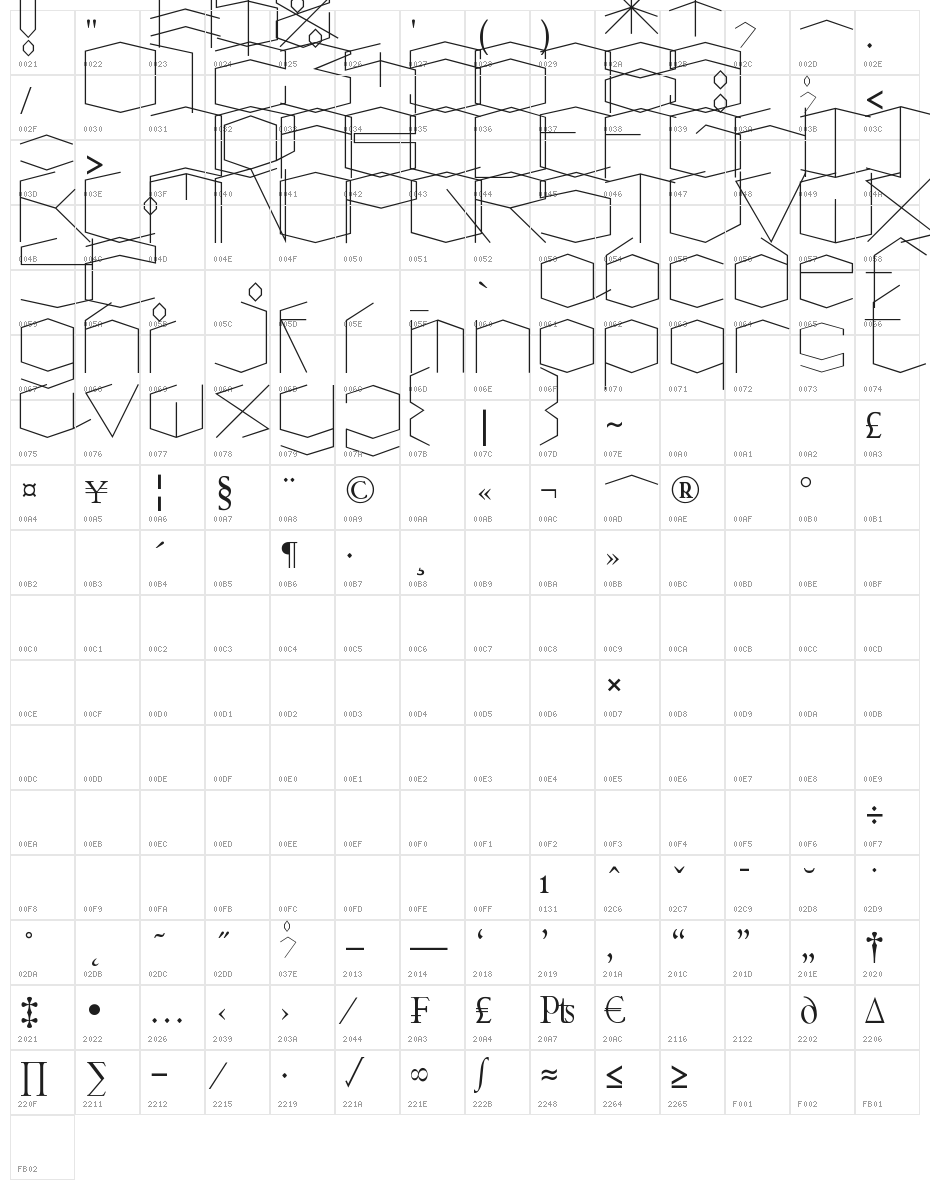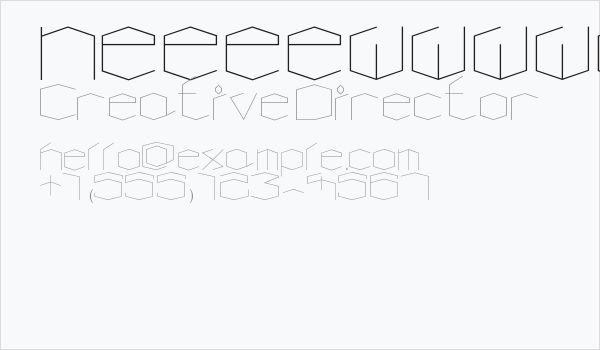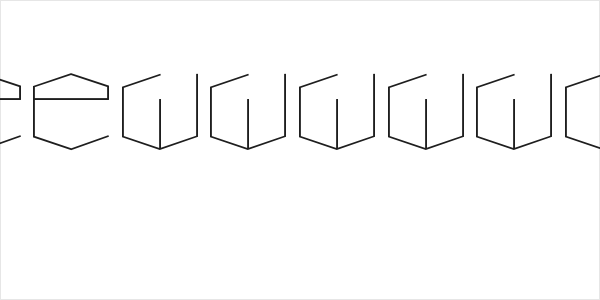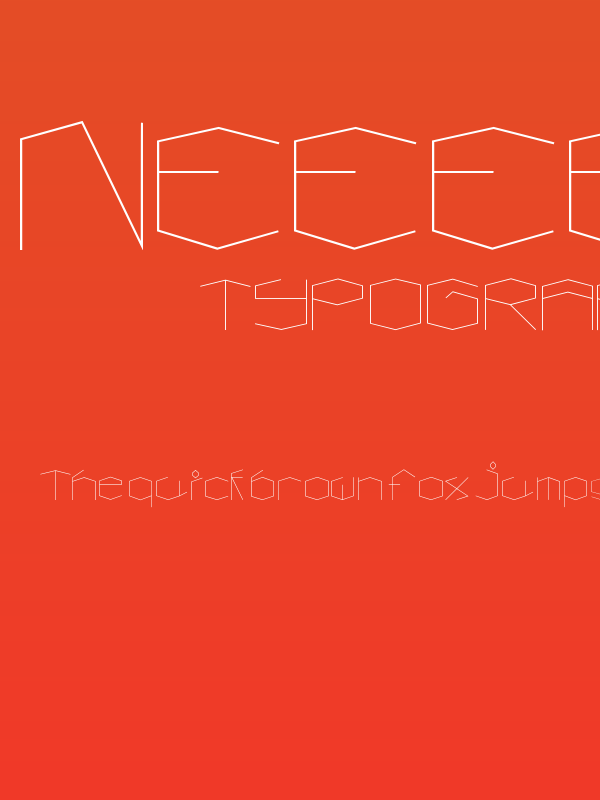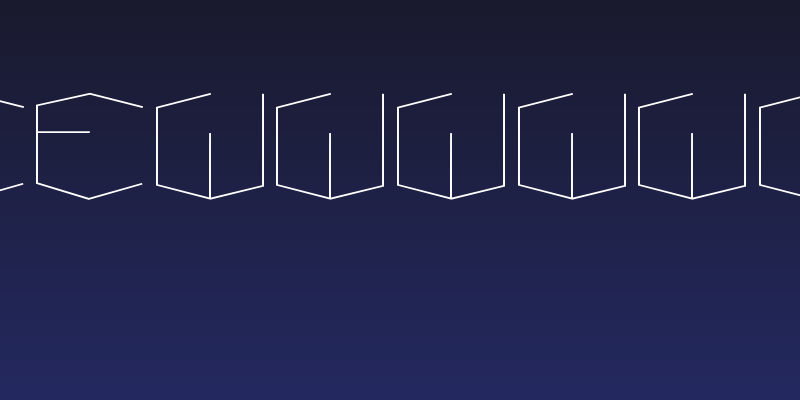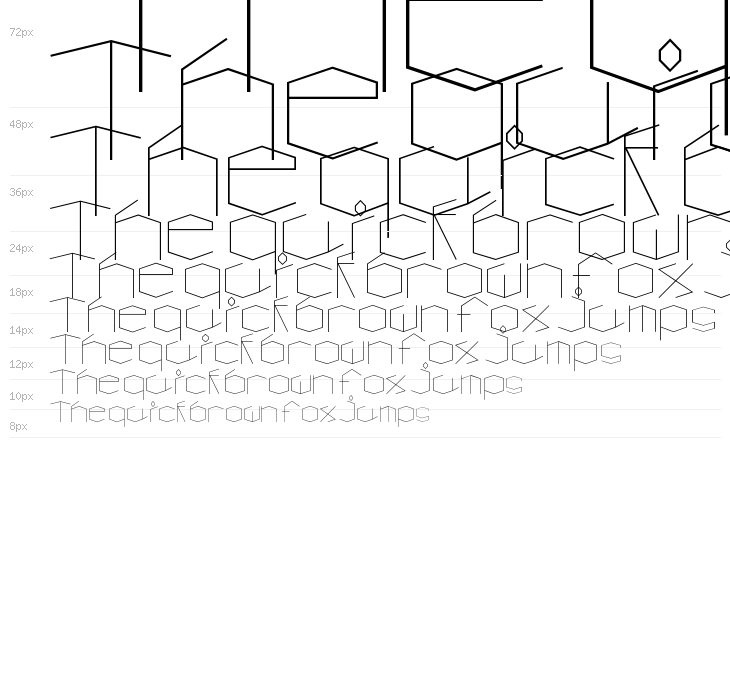
neeeewwwwwwwww Font
neeeewwwwwwwww Description
This font features a unique geometric design with hexagonal shapes forming the basis of each character. The lines are thin and precise, creating a futuristic and technical appearance. The uppercase and lowercase letters maintain a consistent style, with angular and sharp edges that give a sense of modernity and innovation. Numbers and special characters follow the same geometric pattern, ensuring uniformity across the font. The overall look is clean and minimalistic, making it suitable for projects that require a contemporary and cutting-edge aesthetic.